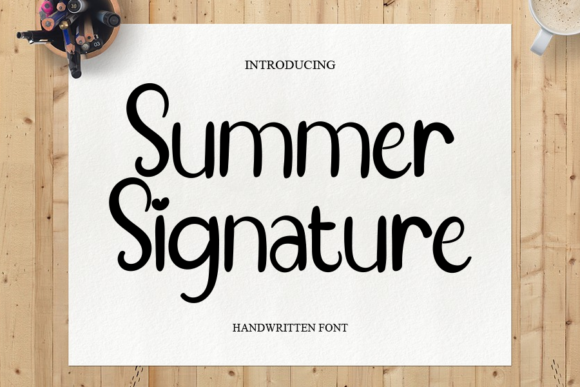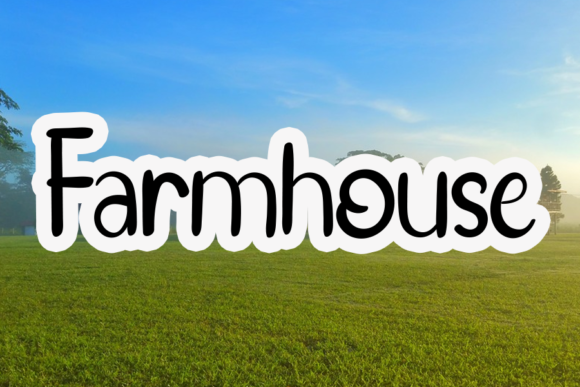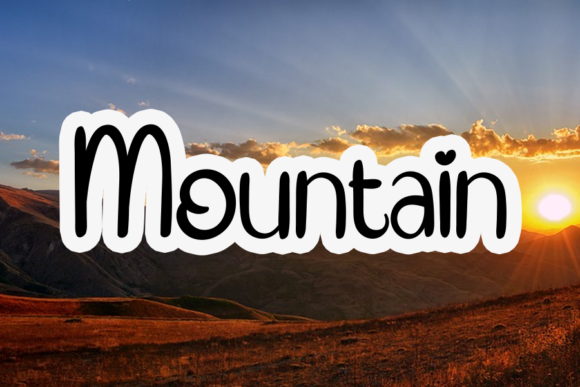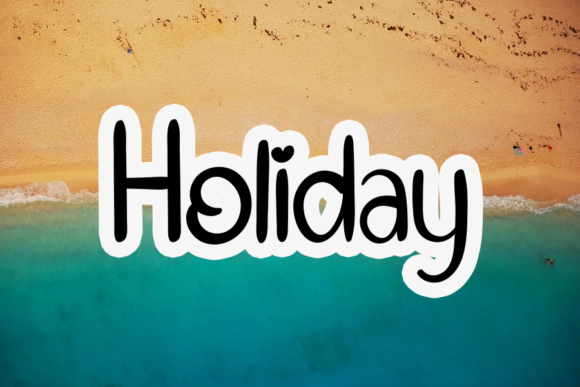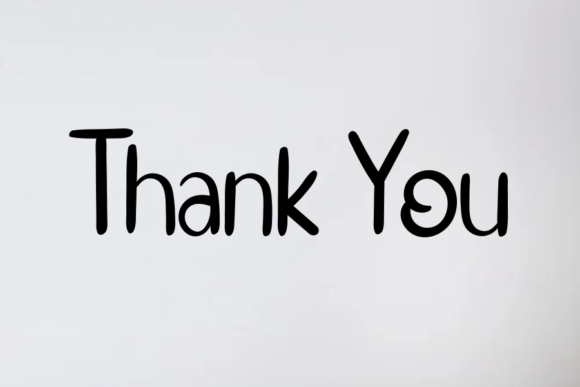
Summer Signature Font
About Summer Signature Font
Summer Signature is a magical script font carefully created with a touch of elegance. Whether you’re looking for fonts for Instagram or calligraphy scripts for DIY projects, this font will turn any creative idea into a true piece of art!